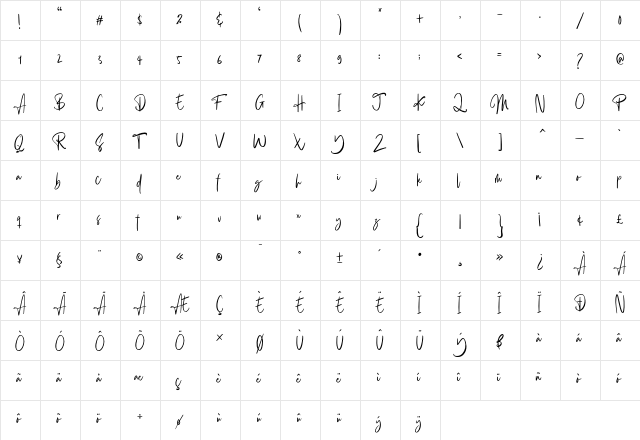
Bankstory Regular
| Designer | Muhammad Naufal Anis |
Bankstory is a composed and adaptable typeface that performs quietly and consistently across a wide range of design contexts.